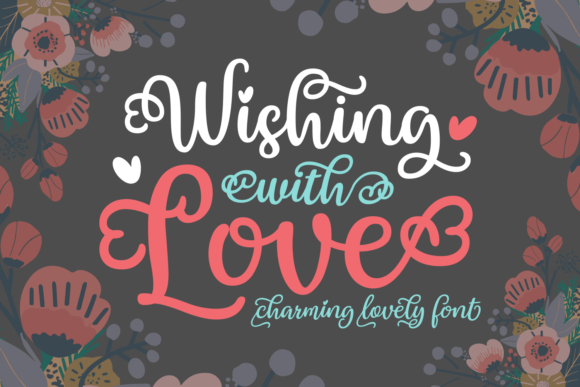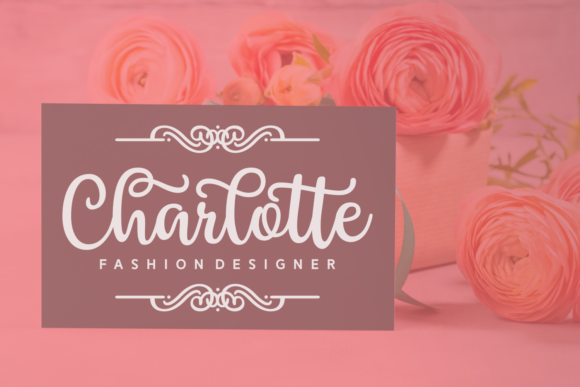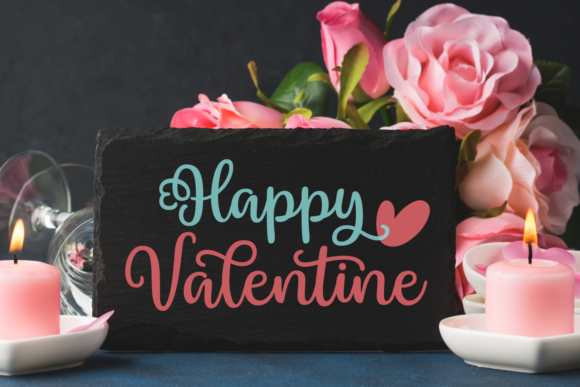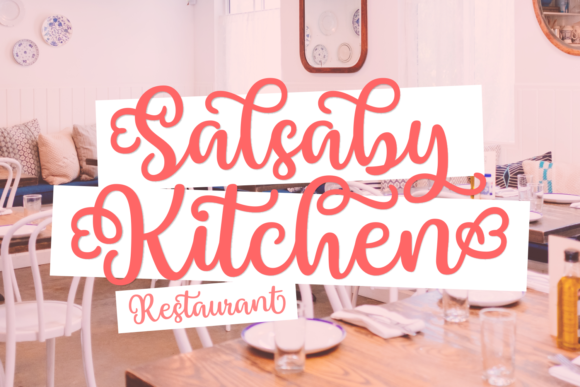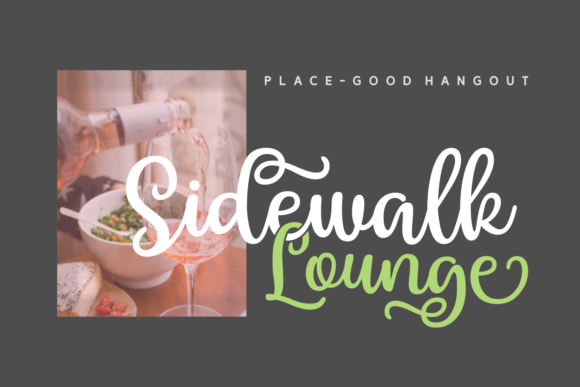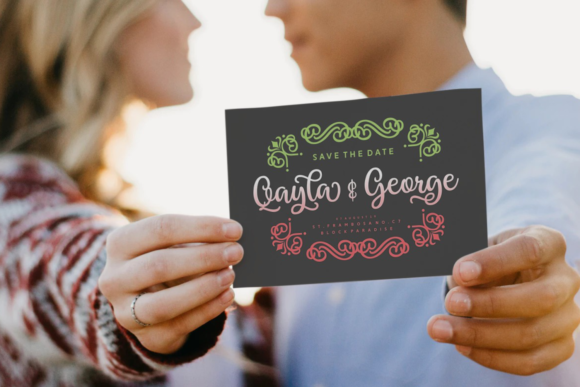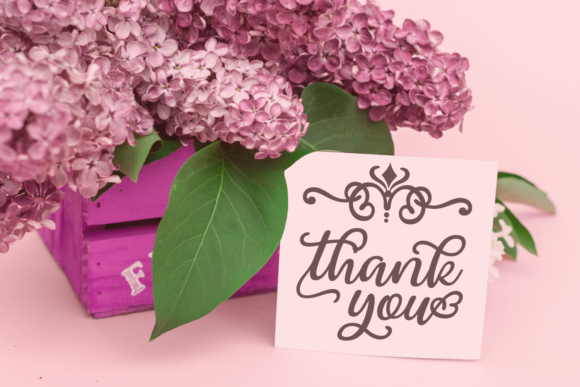
Wishing with Love Font
About Wishing with Love Font
Wishing with Love is a beautiful and inspiring script, full of charm. Fall in love with its striking elegance.